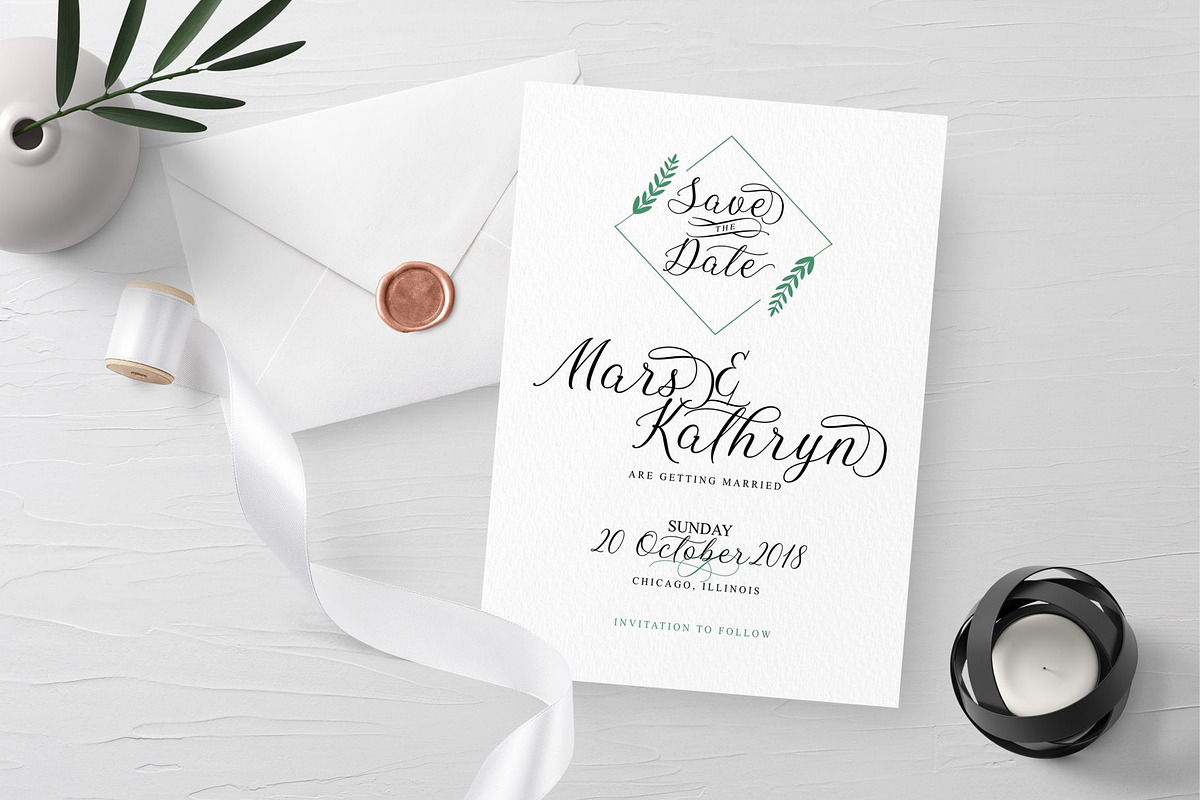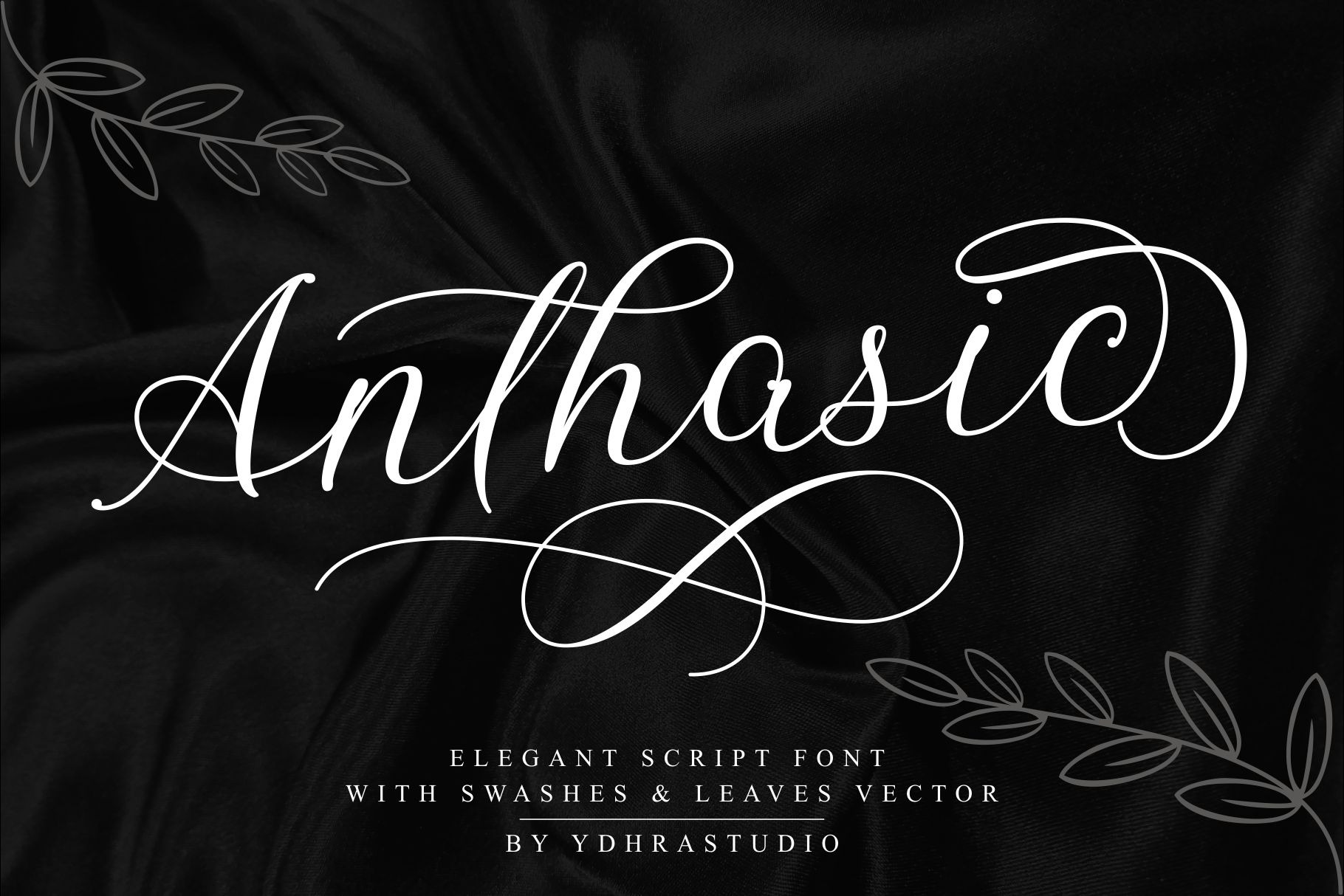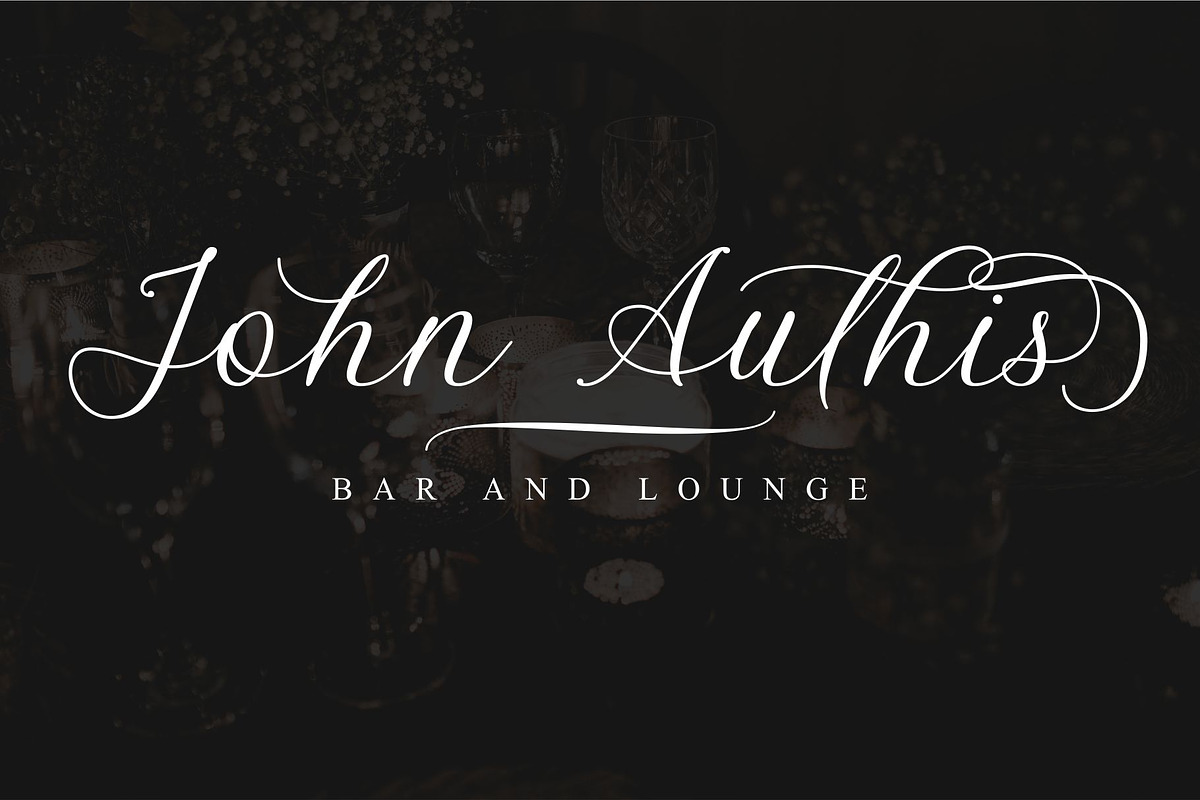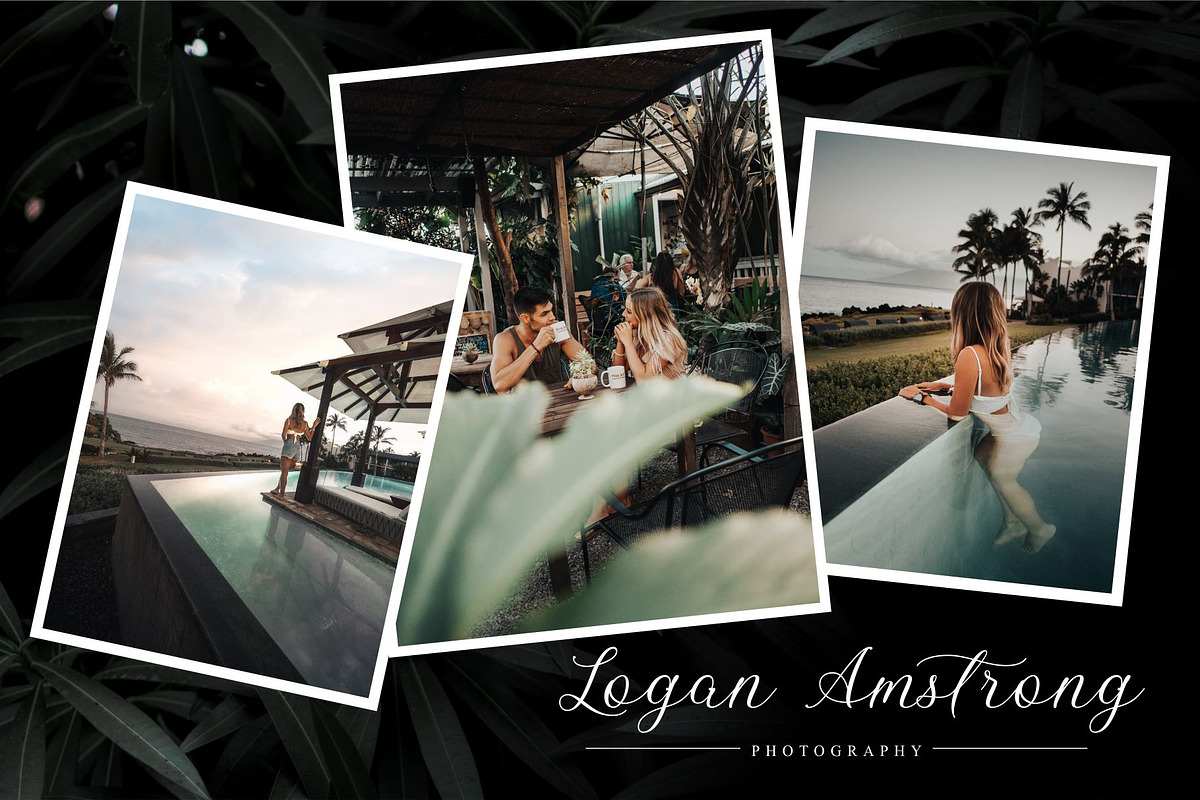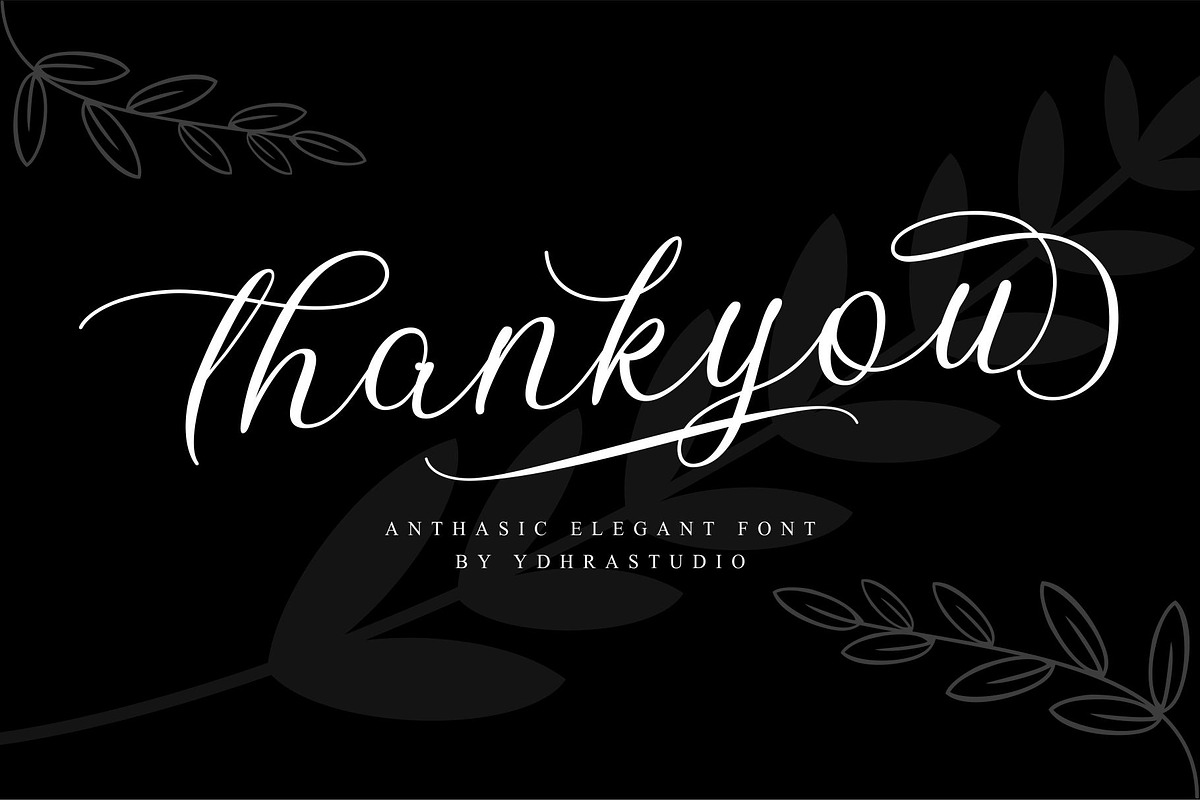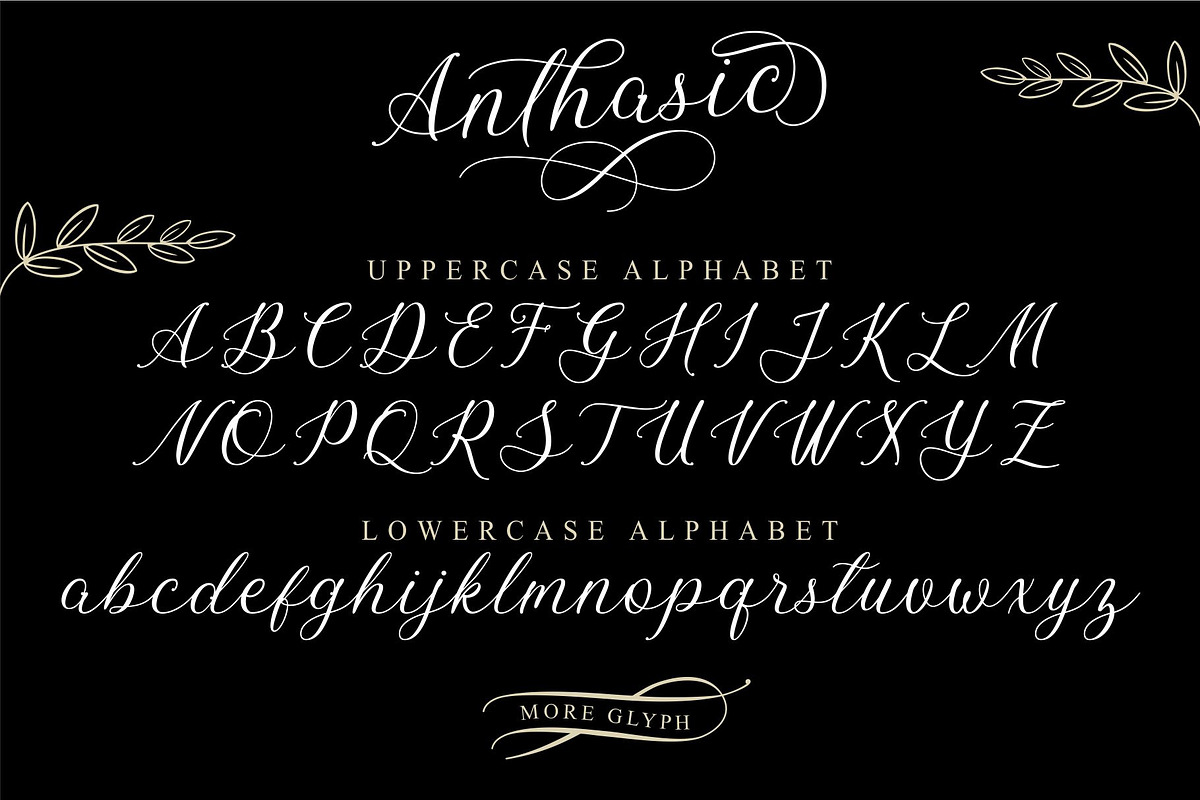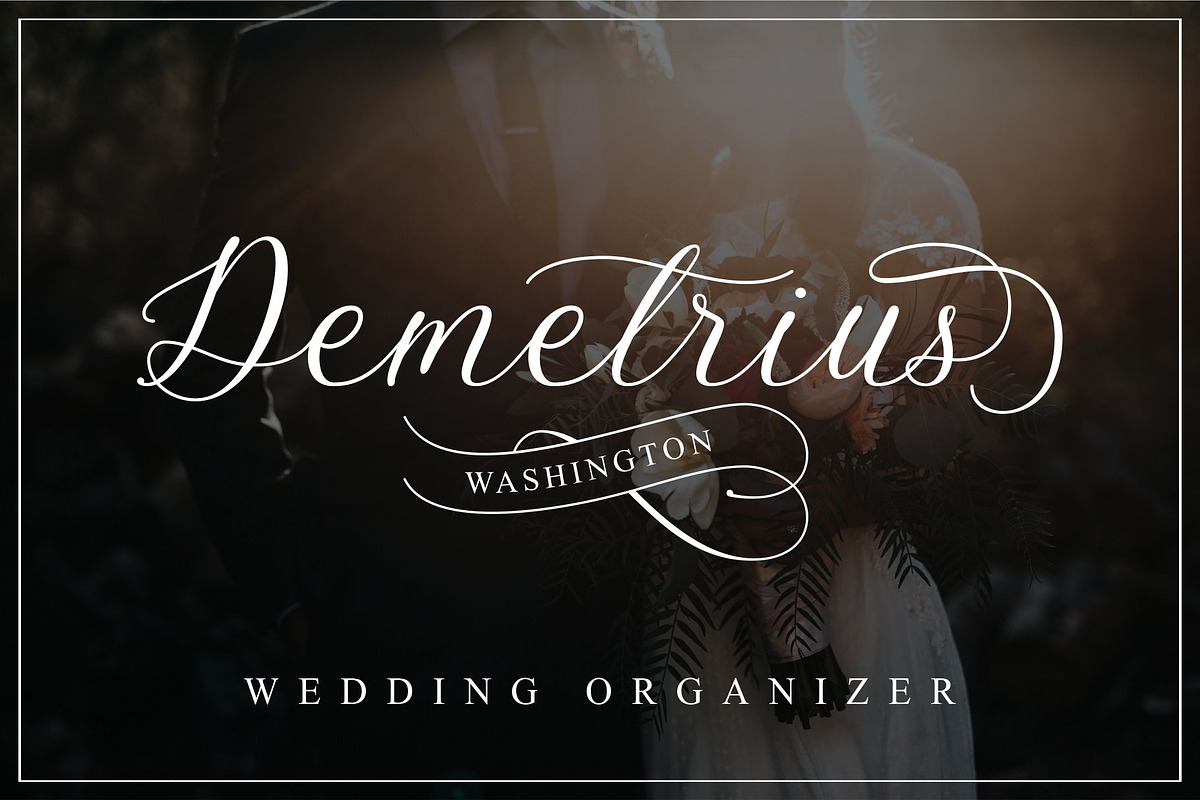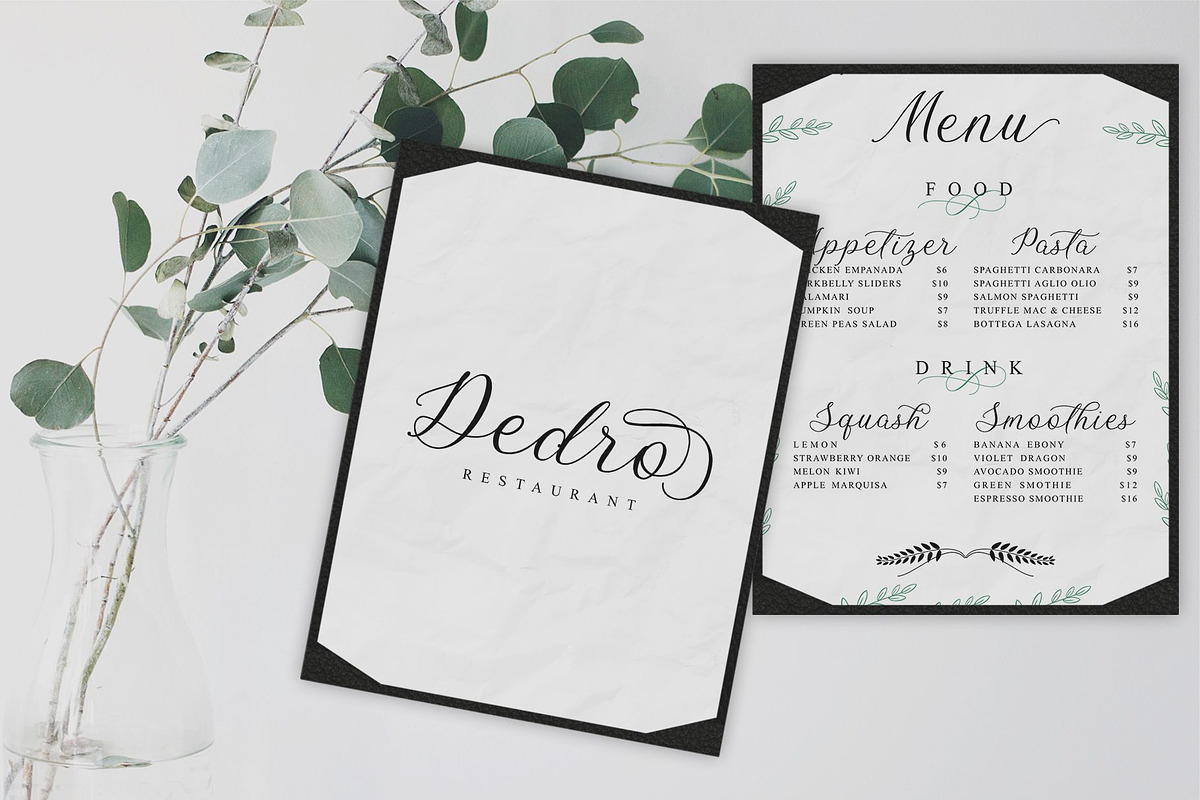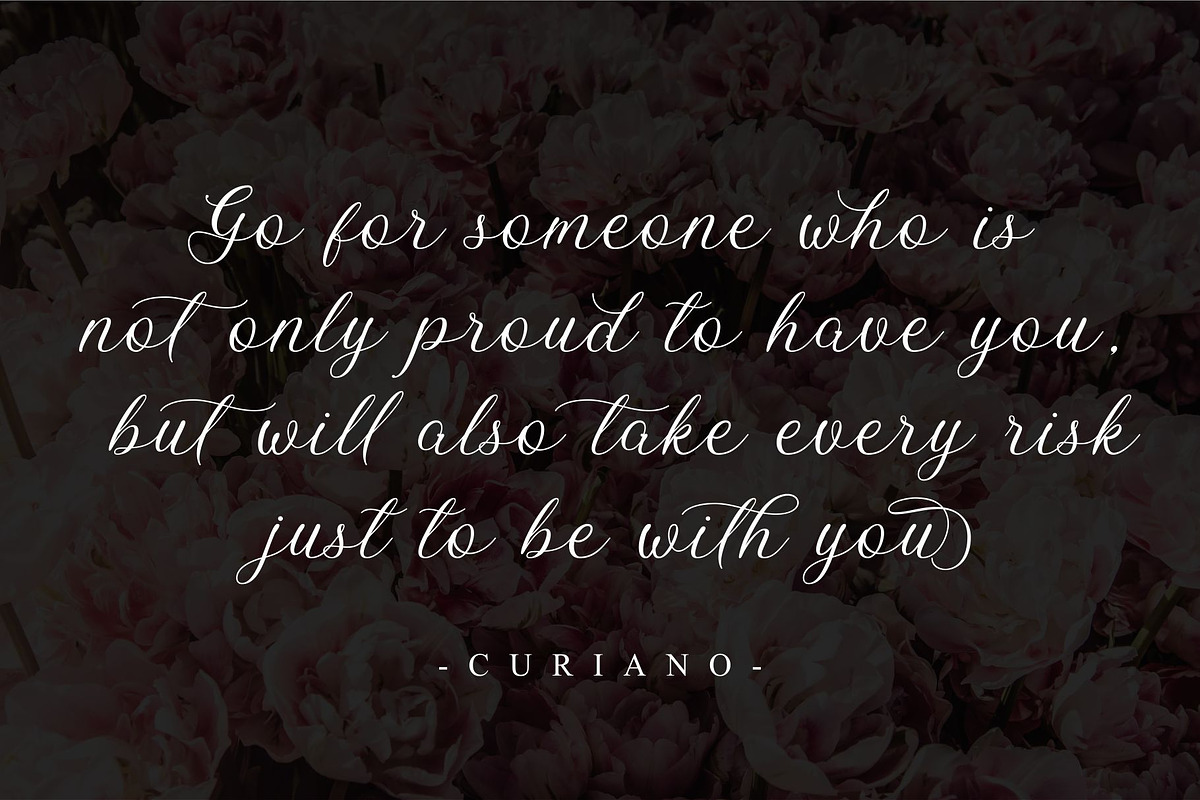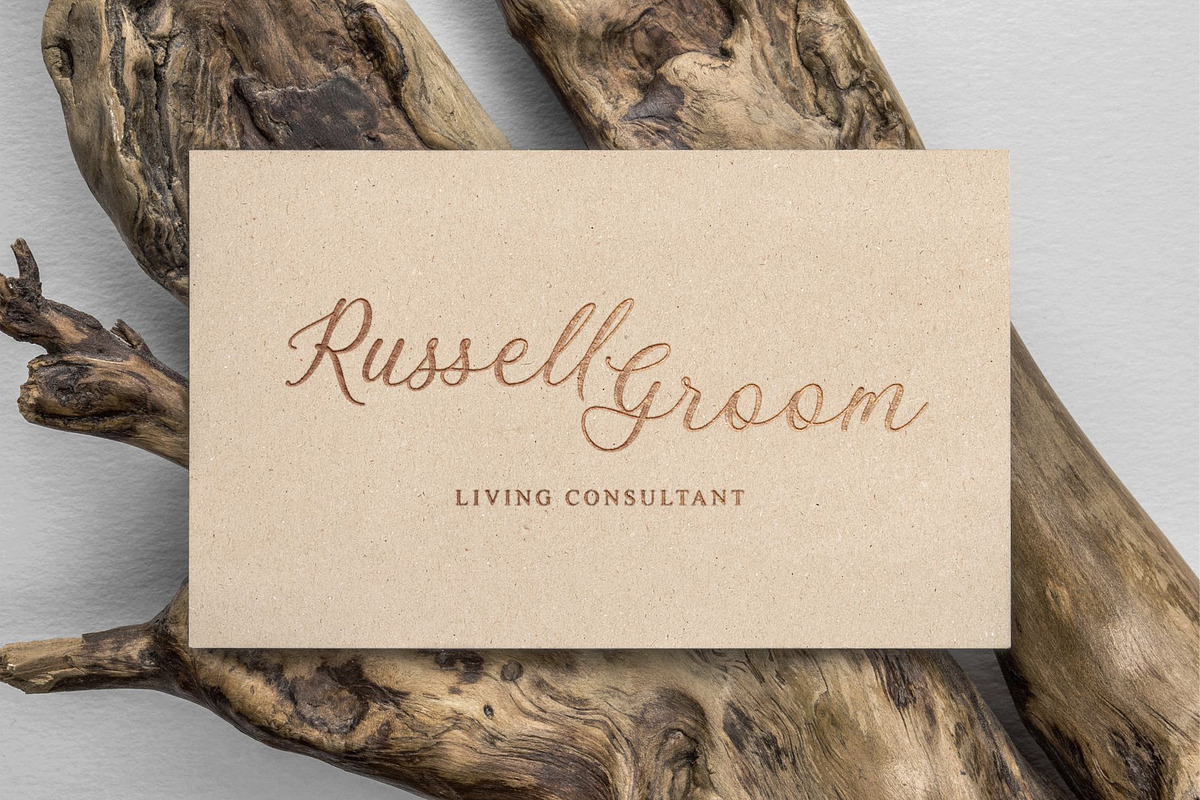
Anthasic Font + Extras
Introducing the elegant new Anthasic Elegant Script Font! For those of you who are needing a touch of elegance and modernity for your designs, this font was created for you!
Anthasic is great for Invitations, Greeting Cards, Posters, Name Card, Quotes, Blog Header, Branding, Logo, Fashion, Apparel, Letter, Magazine, Advertising Design, Stationery and more!
Anthasic Features :
- Upper and Lowercase Standard Characters, Punctuation, Numerals
- OpenType features and includes ending swashes, alternate swash characters for most lowercase letters, multiple ampersans (&), and ligatures
- Bonus Swashes and Leaves